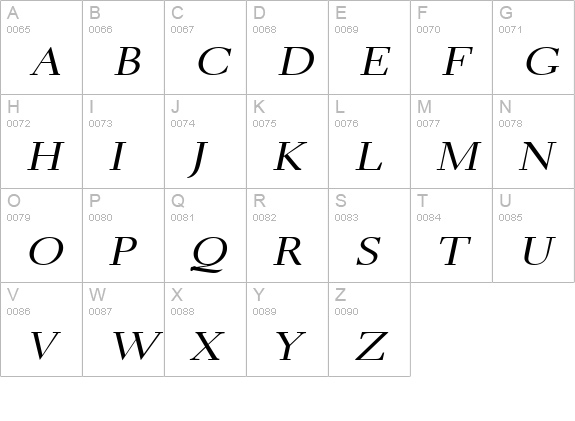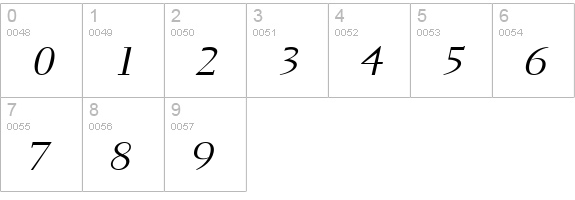
Transit 2 Wide Italic Font Details
Transit 2 Wide Italic is a distinctive, extended-width, italic variant in the Transit typeface family \xE2\x80\x94 well suited to design and typography projects.
Transit 2 Wide Italic font is a stunning and versatile typeface that adds a touch of elegance to any design project. With its sleek and smooth curves, this font exudes a sense of modernity and sophistication. The wide and italicized structure of Transit 2 Wide Italic font gives it a unique and eye-catching appearance, making it perfect for headings, titles, and logos. Not only does Transit 2 Wide Italic font possess a striking visual appeal, but it also offers incredible legibility, ensuring that your message is conveyed with clarity. Whether used for print or digital media, this font stands out and captures the attention of viewers. One of the best features of Transit 2 Wide Italic font is that it is freely available to download at FontsMarket.com. This means that you can easily access and utilize this stunning typeface for all your creative endeavors without any cost. FontsMarket.com is a trusted source for high-quality fonts, and they offer a wide range of options to suit various design needs. Whether you are a professional designer or a hobbyist, Transit 2 Wide Italic font is a must-have in your font collection. Its sleek and elegant design, combined with its incredible legibility, makes it a versatile choice for a wide range of design projects. Download it for free at FontsMarket.com and elevate your designs to new heights.